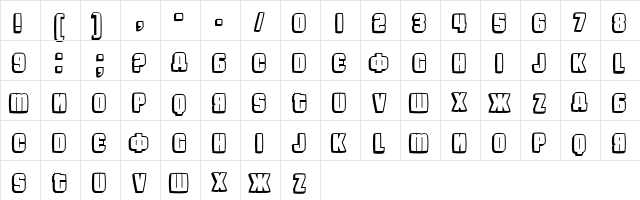
Fontograd Regular
Design Context for Fontograd Typeface
Fontograd is a composed and adaptable typeface that performs quietly and consistently across a wide range of design contexts.